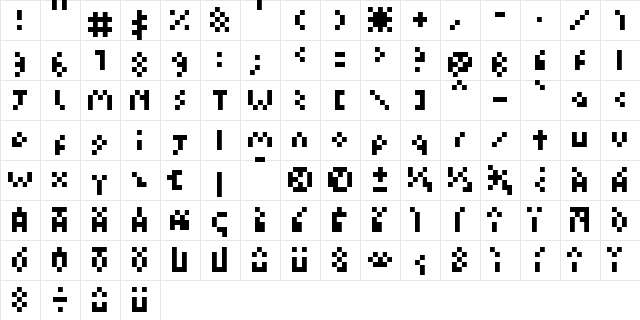
Kuadriculado normal Regular Font Preview
Kuadriculado normal Regular
Kuadriculado normal Regular Font Details
Design Context for Kuadriculado normal Typeface
Kuadriculado normal offers clean, dependable letterforms without strong stylistic allegiance, making it a practical choice for designers who need flexibility.